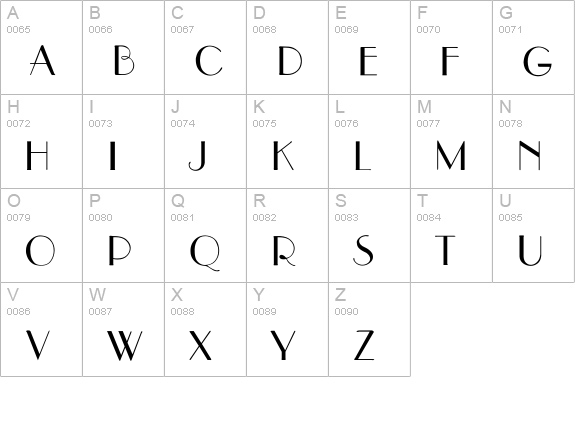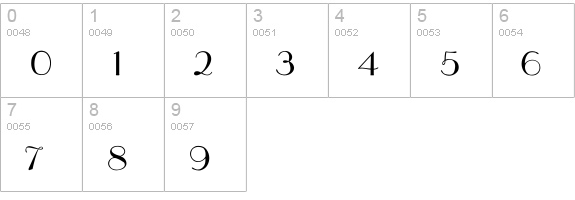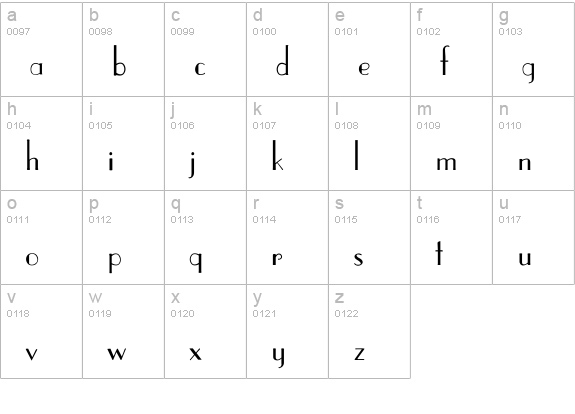
Parisian-Normal is the standard, neutral variant in the Parisian typeface family \xE2\x80\x94 well suited to general body text, paragraphs, and standard typographic work.
Introducing Parisian-Normal, a font that effortlessly captures the elegance and sophistication of Parisian culture. With its clean lines and timeless appeal, this font is perfect for adding a touch of class to any design project. Parisian-Normal exudes a sense of refined simplicity, making it versatile for a wide range of applications - from branding and packaging to editorial design and advertising. Its balanced proportions and delicate curves lend a graceful aesthetic to any text, creating a harmonious visual experience for the reader. What sets Parisian-Normal apart is not only its exquisite design but also its accessibility. This font is freely available to download at FontsMarket.com, making it a valuable resource for designers and creatives alike. Whether you're a seasoned professional or an aspiring artist, Parisian-Normal provides a high-quality option that won't break the bank. With its extensive character set, including multilingual support and a variety of ligatures, Parisian-Normal ensures that your message is conveyed with precision, regardless of the language or typographic requirements. Its legibility remains uncompromised, allowing your content to shine through effortlessly. As you immerse yourself in the world of Parisian-Normal, you'll discover its versatility and adaptability to different design styles and purposes. From classic and elegant to modern and sleek, this font seamlessly blends into any project, adding a touch of sophistication that is synonymous with the City of Lights. So why wait? Enhance your designs with the timeless charm of Parisian-Normal. Download this exquisite font for free at FontsMarket.com and let its refined aesthetic elevate your creative endeavors to new heights.